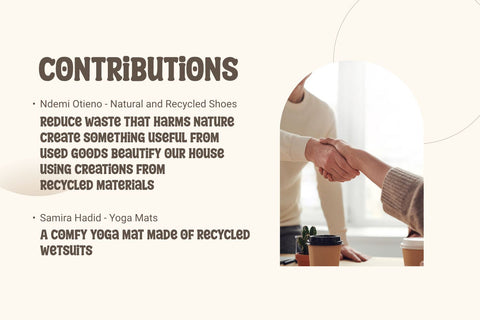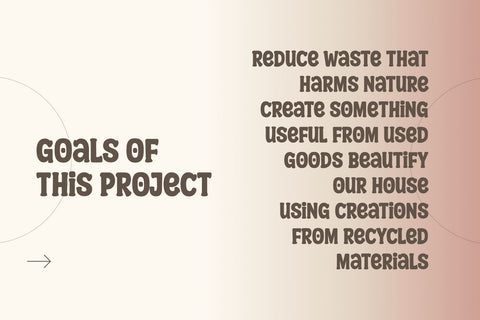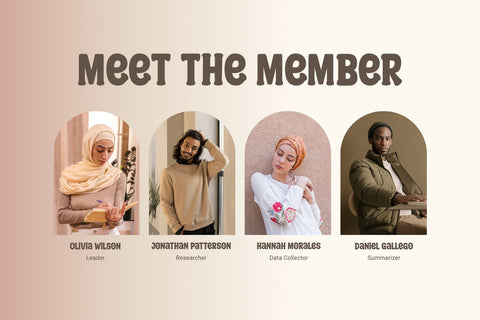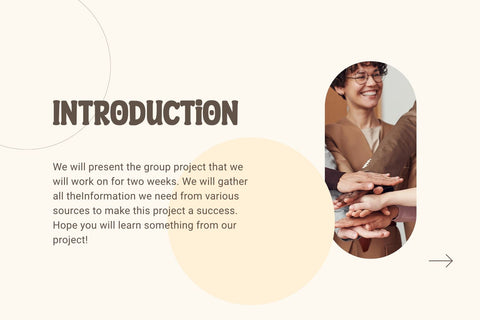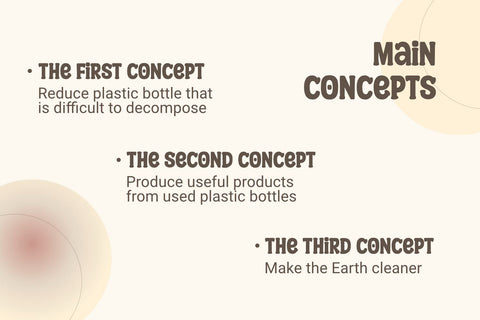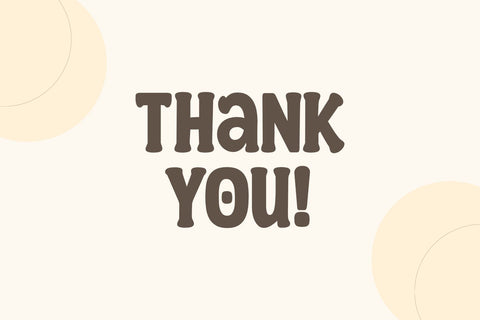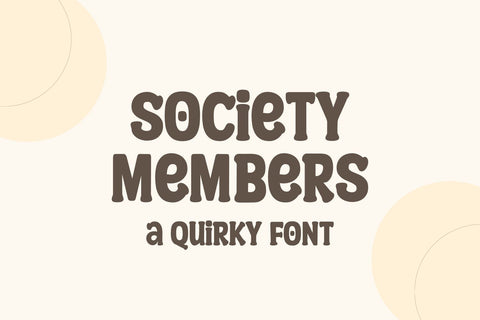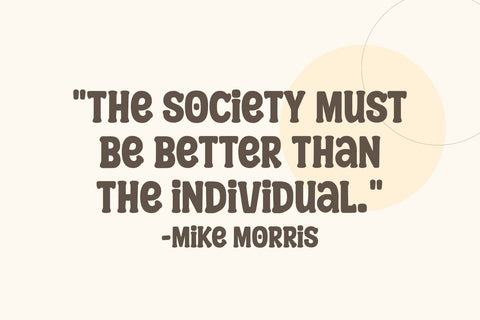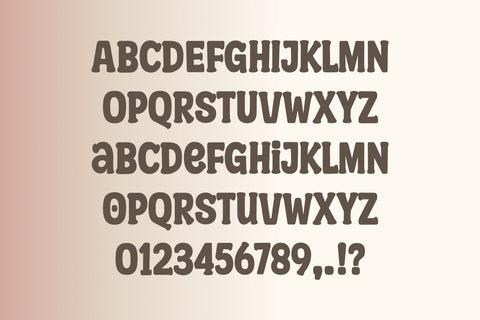
Society Members - a Quirky Font
Society Member is a cool, quirky and thick lettered display font. Whether you’re using it for crafts, digital design, presentations, or making greeting cards, this font has the potential to become your favorite go-to font, no matter the occasion!